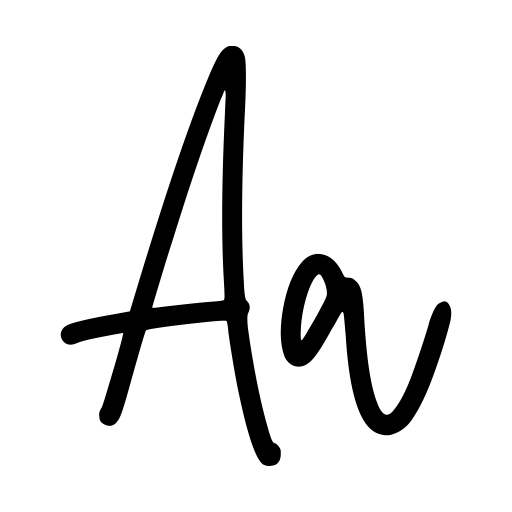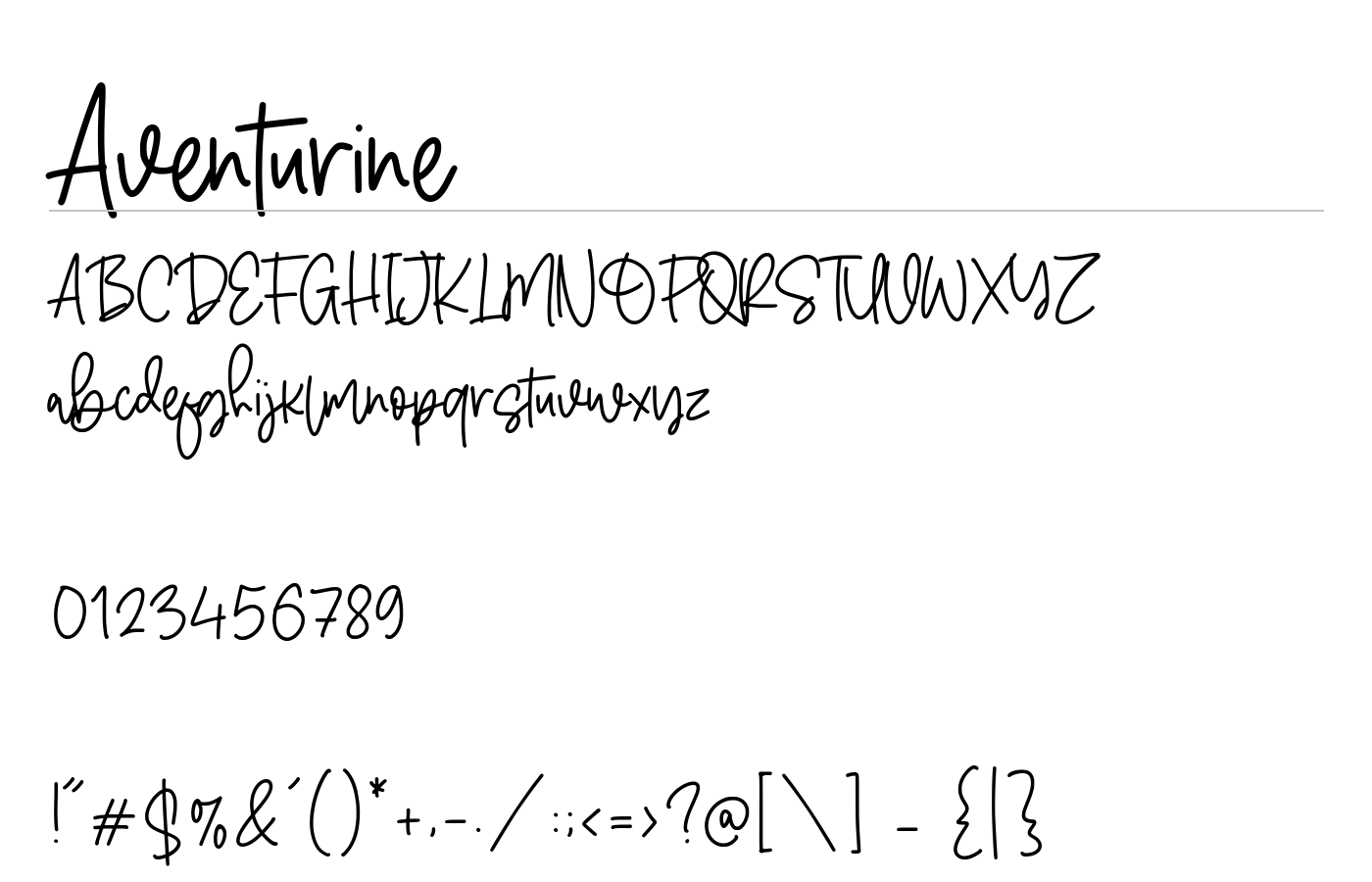
Aventurine is a playful, casual handwritten sans serif font with a lively, energetic feel. Its narrow, slightly irregular letterforms and consistent stroke weight offer a friendly, approachable style perfect for informal branding, invitations, and creative projects seeking a personal touch. This font works well in headlines and short texts where a unique, hand-drawn look is desired.
Aventurine Font
About Aventurine Font
| Font family | Aventurine Font |
| Designer | Letterative Studio |